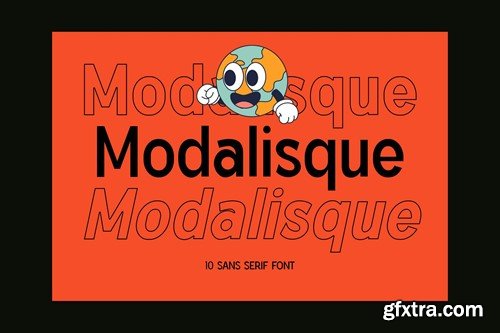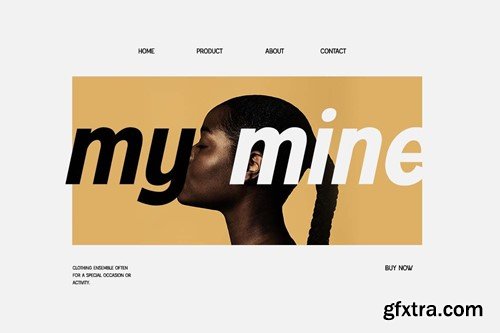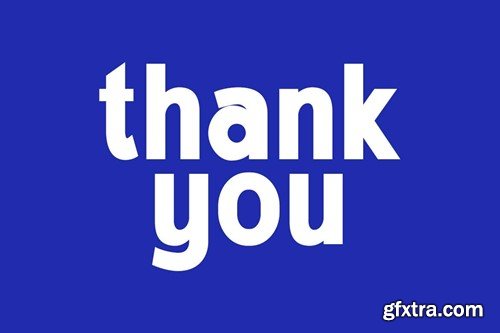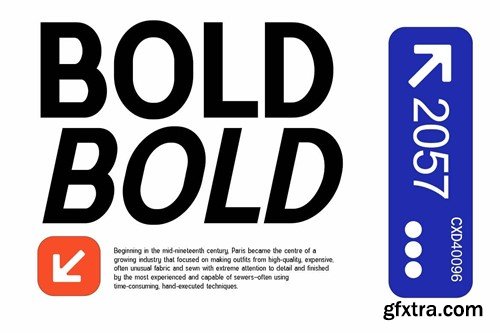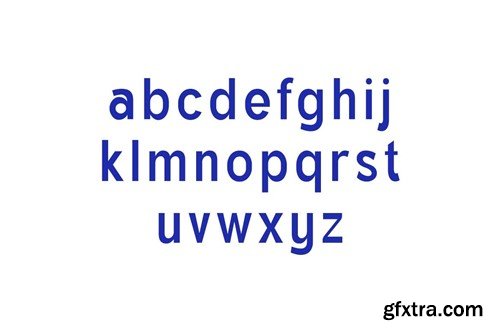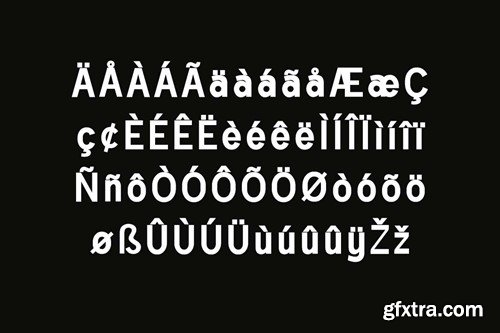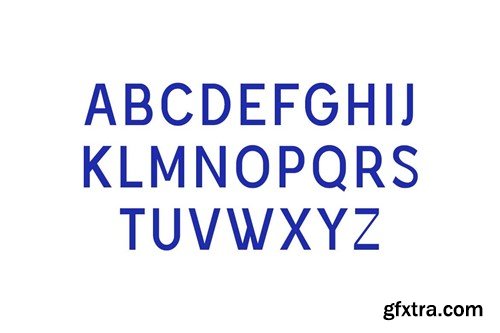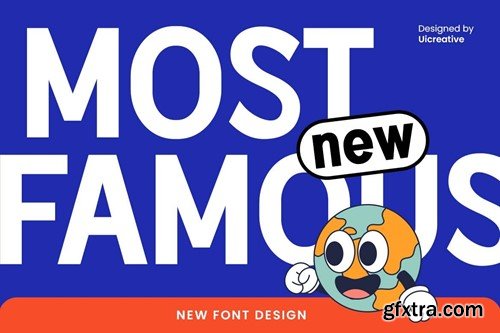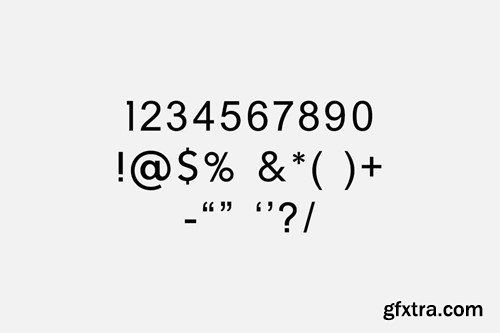
模版Sans-serif字体LF3478C
Modalisque Sans Serif Font LF3478C
Modalisque Sans Serif Font
Introducing our new product the name is Modalisque Sans Serif Font. Modalisque Sans Serif Font that feels beautiful classy, elegant, and modern. This font is perfectly suited for a wide variety of projects, such as signature, stationery, logo, wedding, typography quotes, magazine or book covers, website headers, branding, packaging design, and more. Also, fashion-related branding or editorial design displays both masculine and feminine qualities.